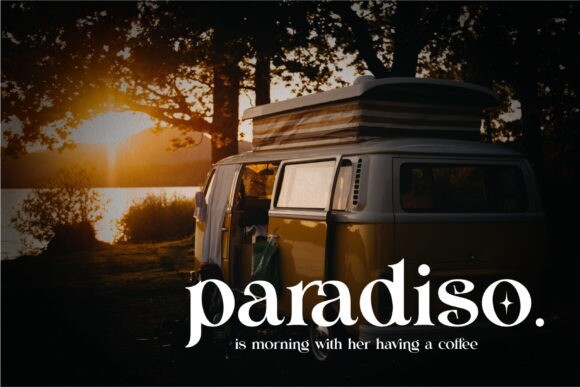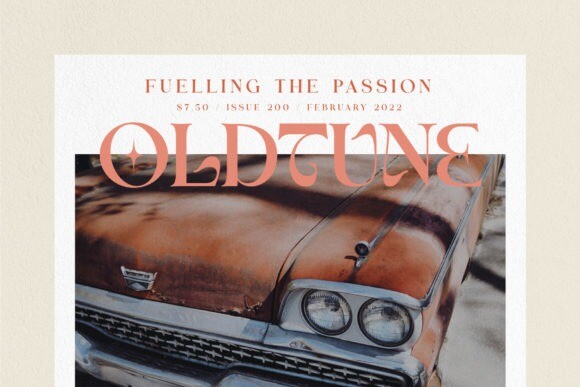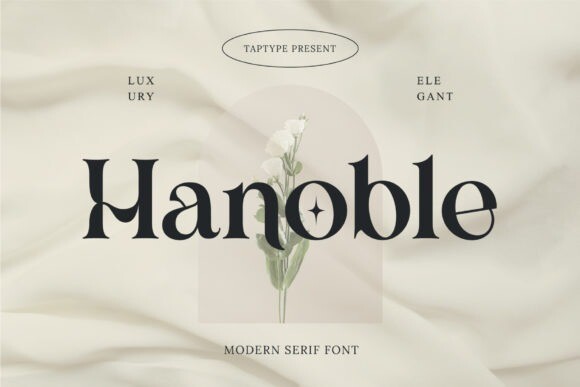
Hanoble – Vintage Serif Display Font
Hanoble is a stylish and unique serif font. It is PUA encoded which means you can access all of the glyphs and swashes with ease!